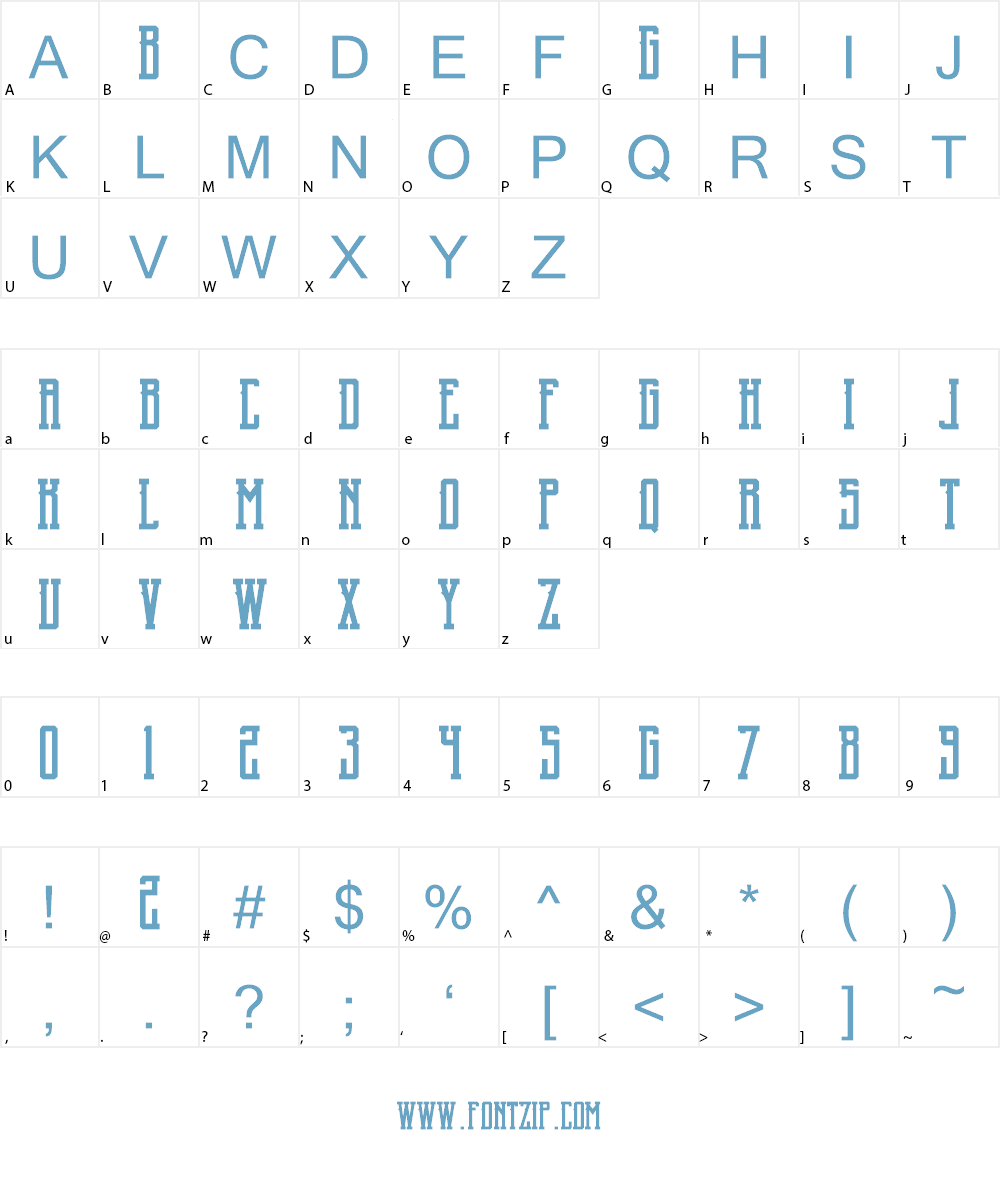
Blnc Family
Blnc inspired by Old Western lettering with some Modern touch. Great for almost all of your designing needs including headline, labels, logo, etc.
include 5 fonts
- Blnc Regular
- Blnc Round
- Blnc Rought
- Blnc Dust
- Blnc VIntage